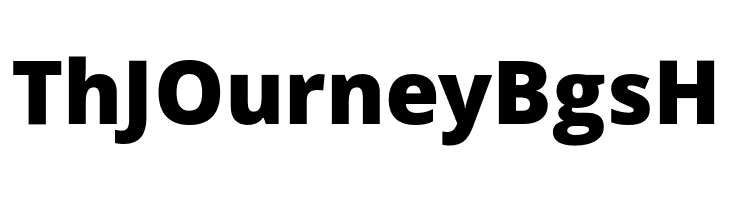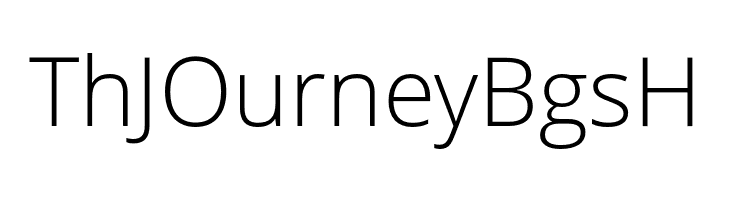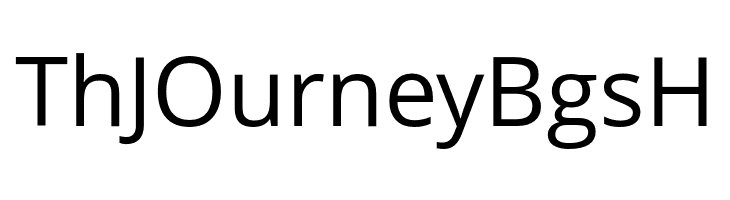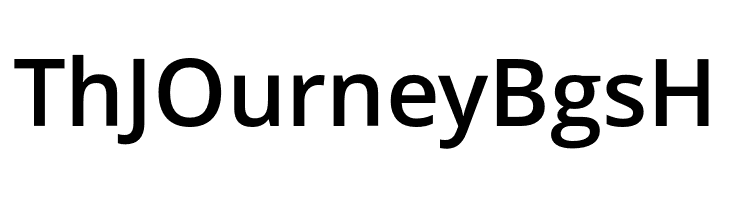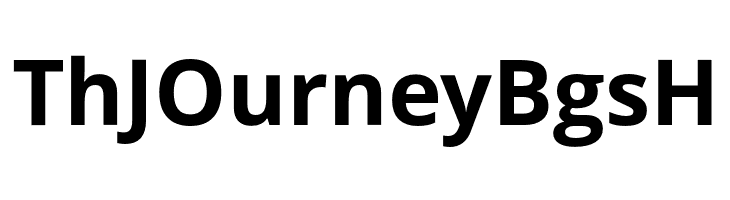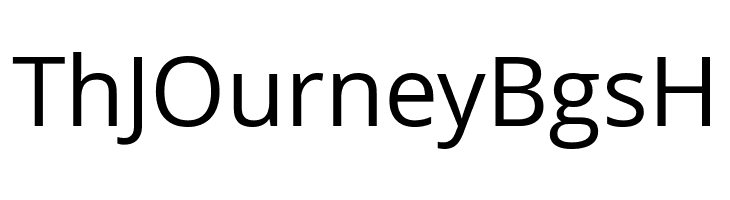
A bold, modern sans-serif font with clean lines and geometric structure.
A modern, geometric sans-serif font with uniform stroke widths.
A modern sans-serif font with open, rounded letterforms and uniform stroke thickness.
A clean, modern sans-serif font with a light weight and balanced design.
A clean, modern sans-serif typeface with open, rounded letterforms and uniform strokes.
A modern, semi-bold sans-serif font with excellent readability and a clean design.
A bold, modern sans-serif font with a clean and slightly condensed style.